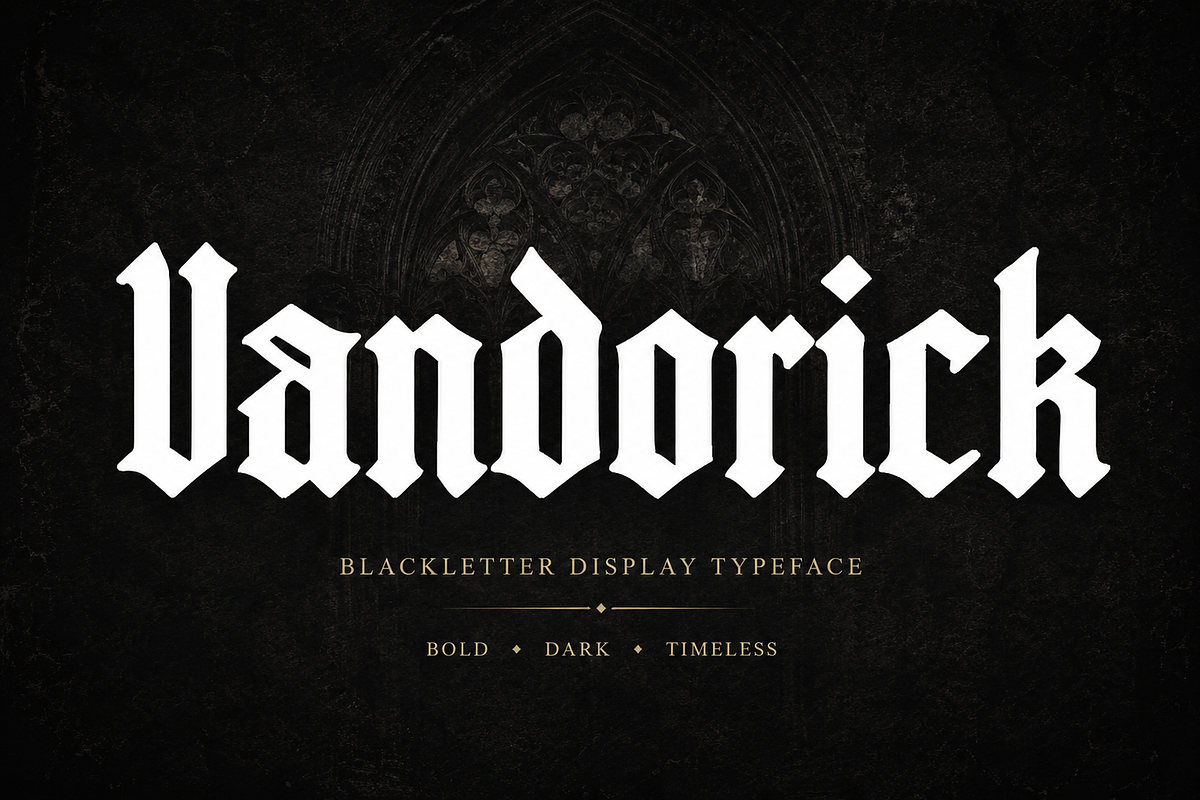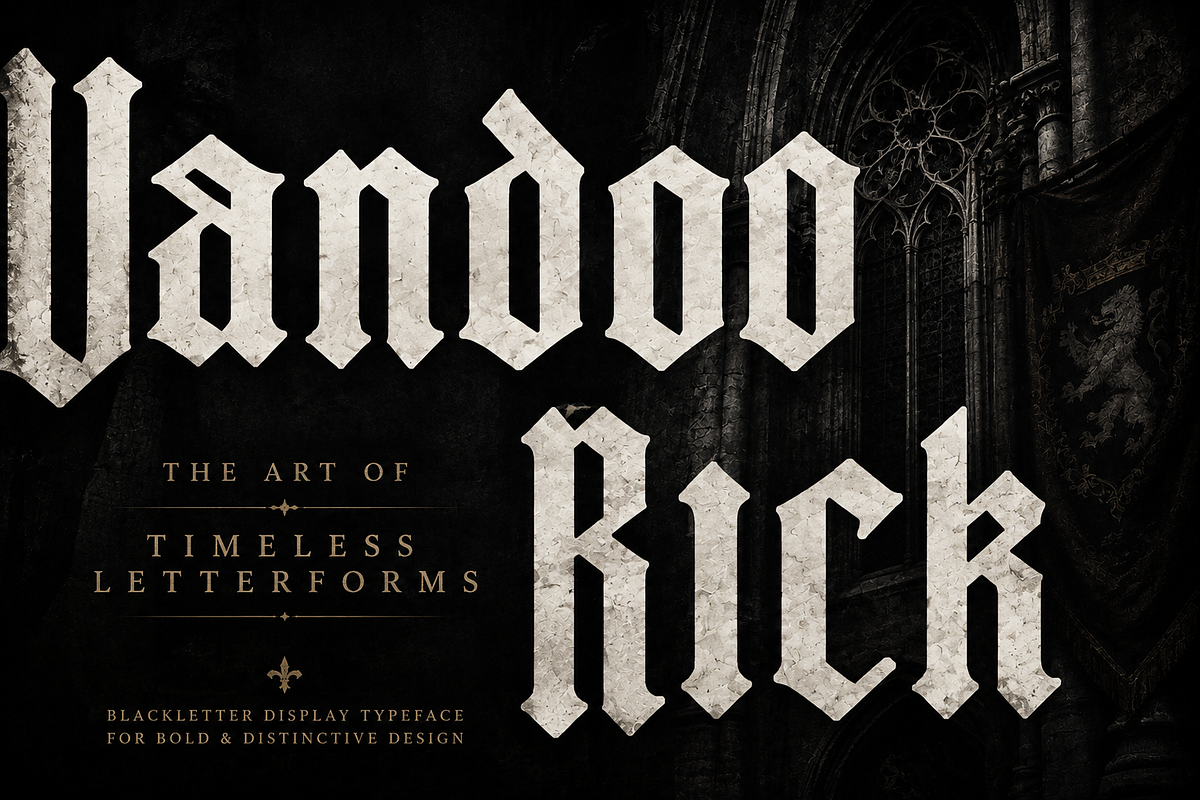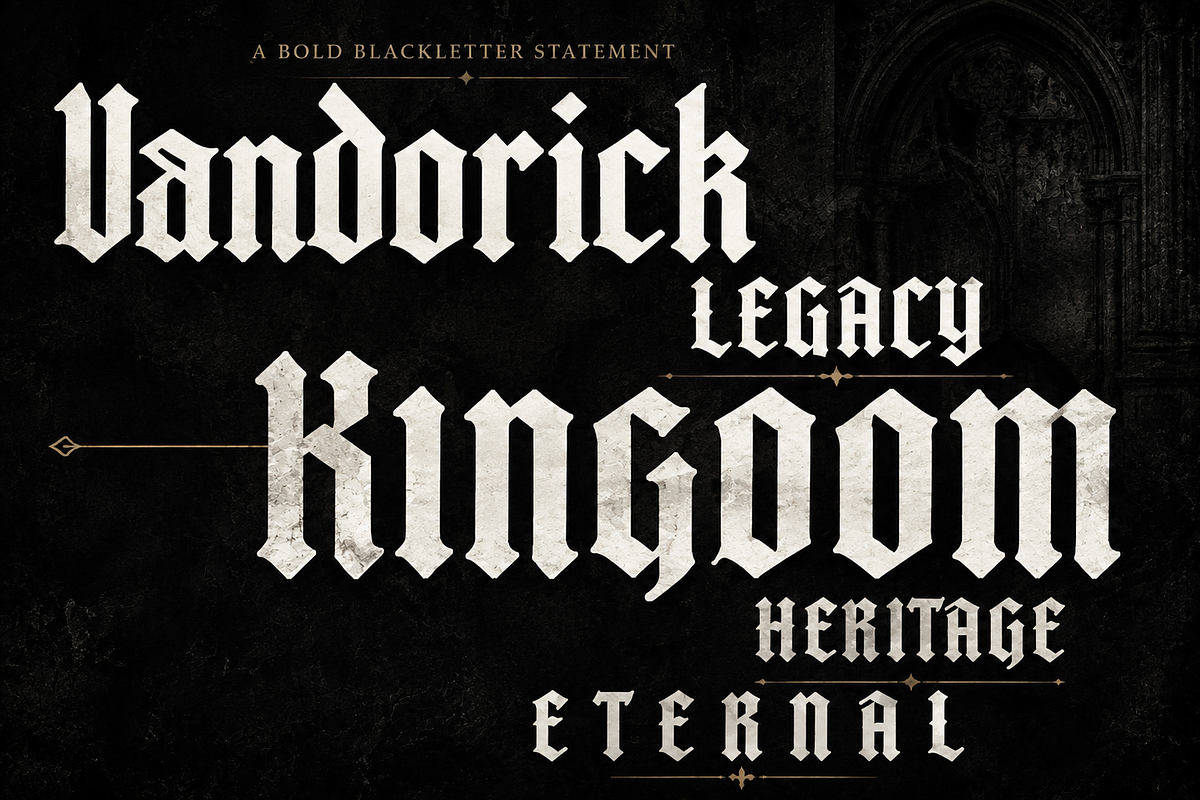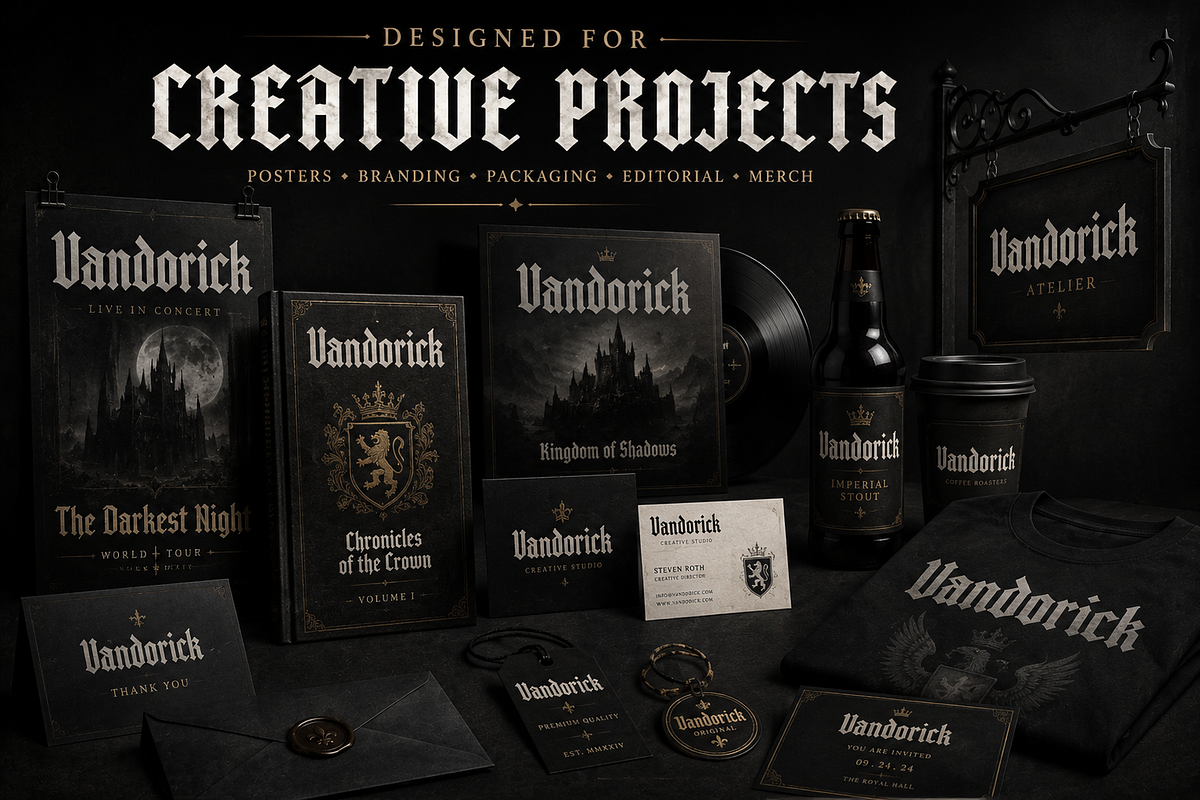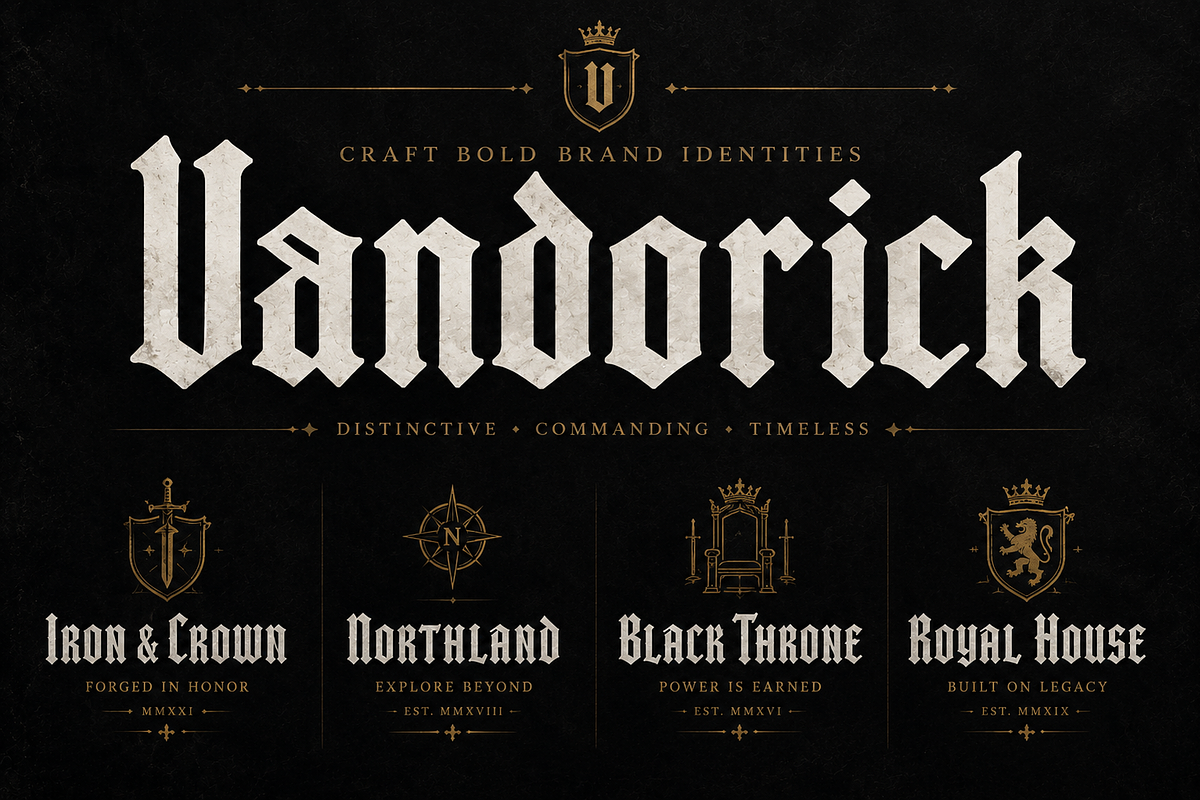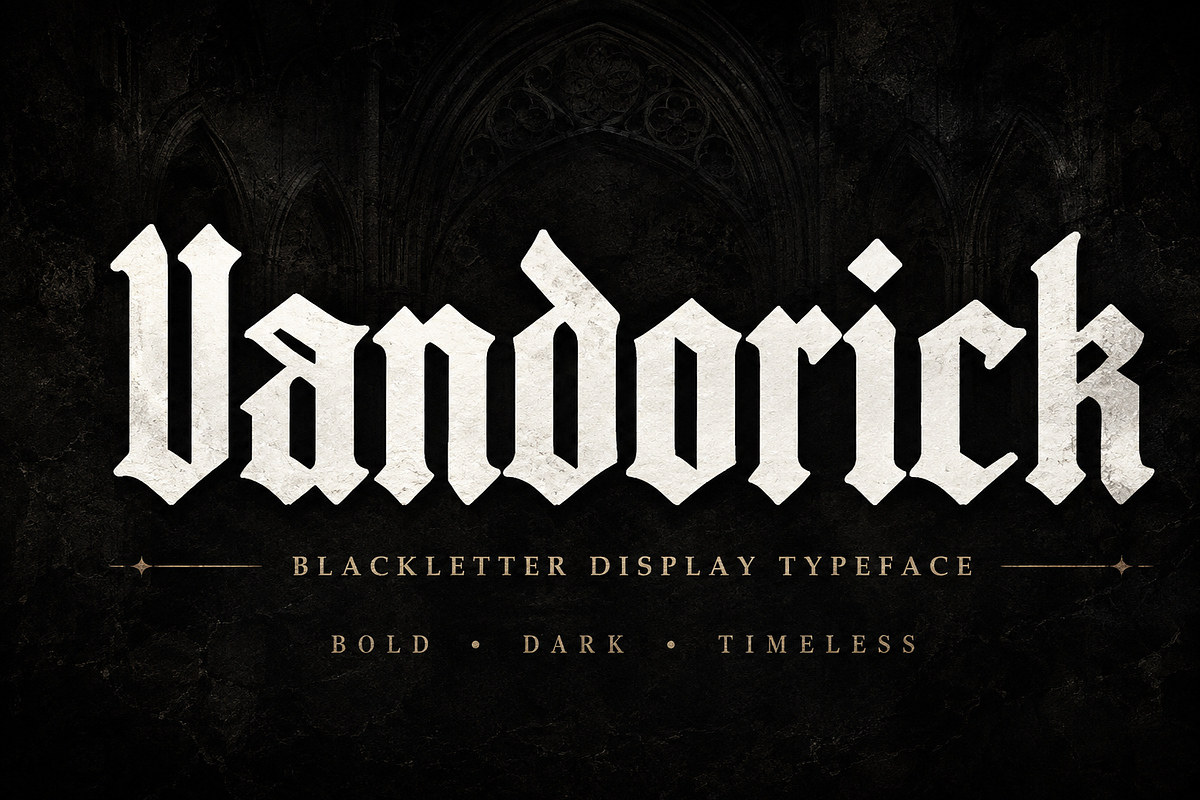
Vandorick
Vandorick – Blackletter Gothic Display Font
Vandorick is a bold and distinctive Blackletter display font inspired by classic Gothic typography and medieval letterforms. With its sharp edges, strong vertical strokes, dramatic shapes, and timeless character, Vandorick is designed to make a powerful visual statement.
Perfect for creating striking designs with a dark, luxurious, historic, and commanding aesthetic. Its strong display presence makes it an excellent choice for branding, logos, posters, album artwork, book covers, packaging, apparel, invitations, labels, signage, editorial designs, and other creative projects.
Vandorick works especially well when you want your typography to feel bold, dramatic, traditional, and memorable. Whether you're designing a powerful brand identity, an atmospheric poster, or distinctive merchandise, Vandorick brings an authentic Gothic character to your work.
Logo & Branding
Posters & Flyers
Album & Music Artwork
Packaging & Labels
T-Shirt & Apparel Design
Invitations & Stationery
Editorial Design
Signage & Typography
Gothic & Medieval Designs
Luxury & Vintage-Inspired Projects
Bring bold Gothic character and timeless style to your next creative project with Vandorick.